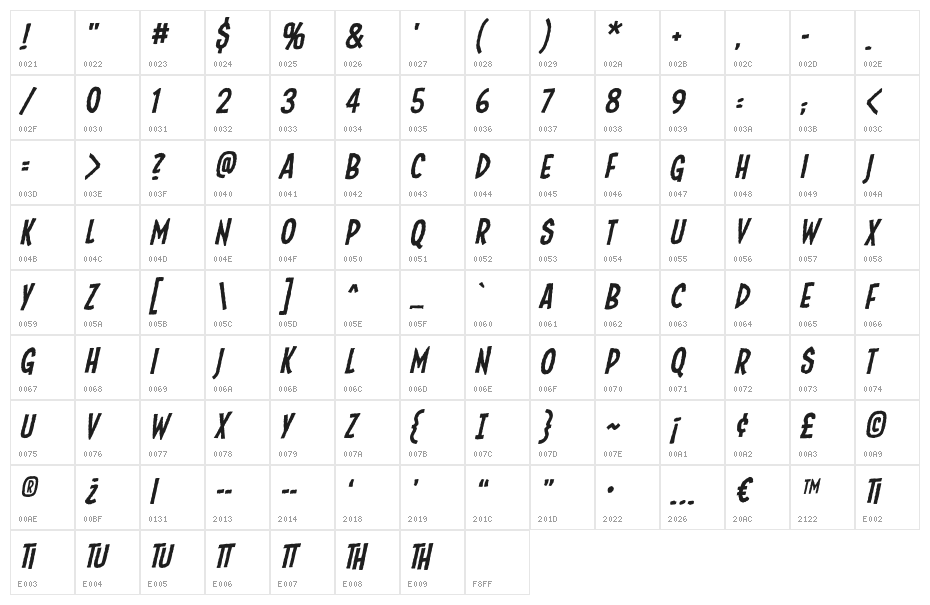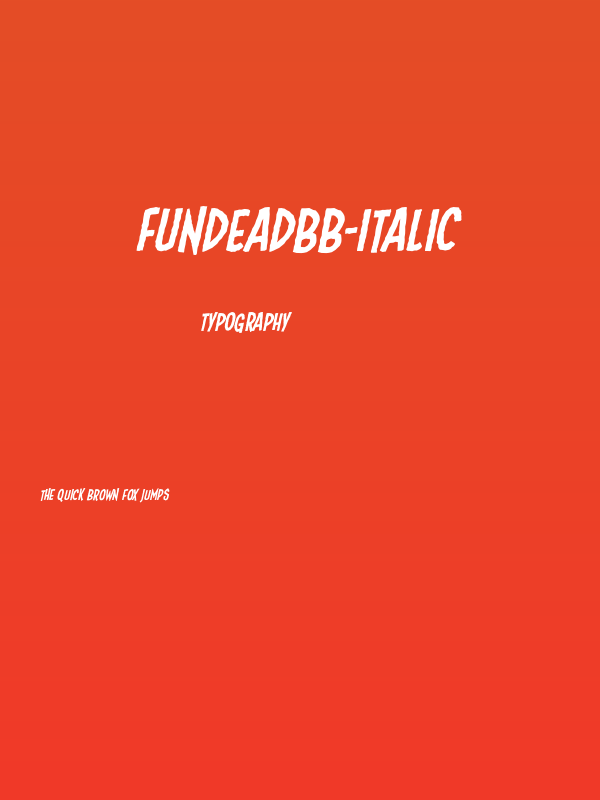
FundeadBB-Italic Font
FundeadBB-Italic Description
This font features a bold and dynamic style with a hand-drawn appearance, characterized by its slanted, italicized form. The strokes are thick and uneven, giving it a rough, edgy look that suggests movement and energy. The uppercase and lowercase letters maintain a consistent slant, enhancing the font's cohesive and lively feel. Numbers and special characters follow the same stylistic approach, ensuring uniformity across all elements. The overall design is playful yet assertive, making it suitable for projects that require a strong visual impact.
Proposed ProjectsIdeal for posters, comic book titles, Halloween-themed designs, and any project needing a bold, playful touch.